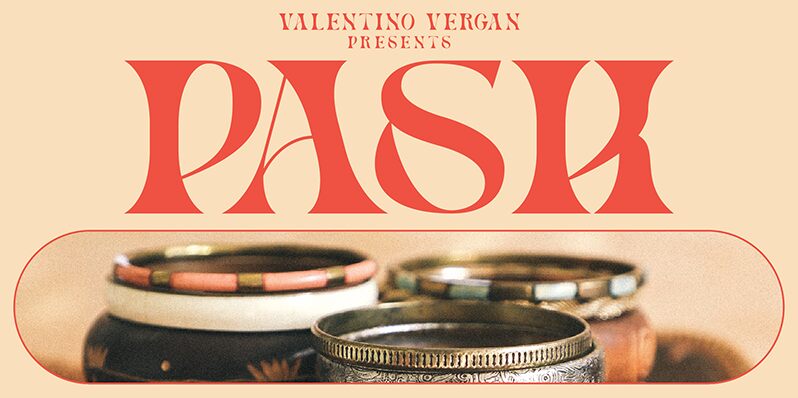
Pask font
Pask
Pask is a retro-inspired variable font family featuring high contrast and thin hairlines, which give the typeface a bold and nostalgic appearance. This versatile font family includes both standalone fonts and a variable version, allowing you to easily adjust the width and slant to suit your design needs.
Pask is ideal for a wide range of projects, including branding, mastheads, magazines, logos, blog posts, quotes, product packaging, advertisements, and much more.